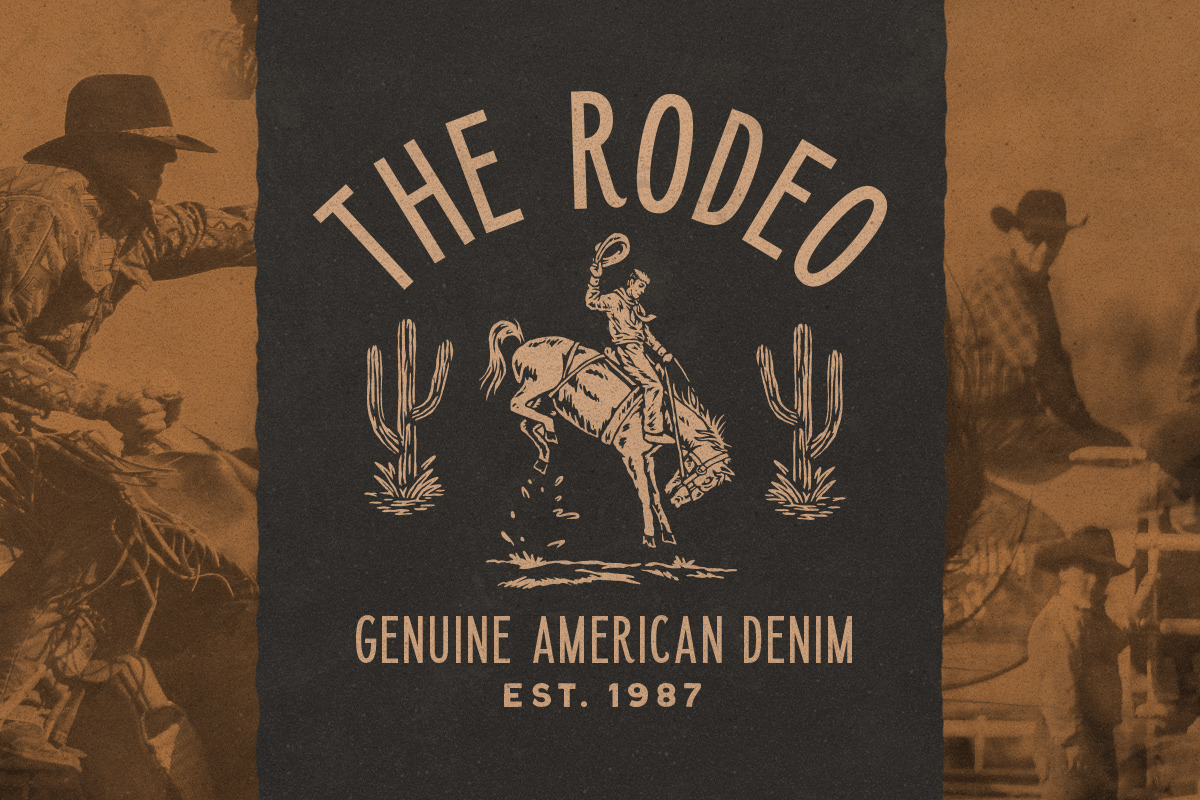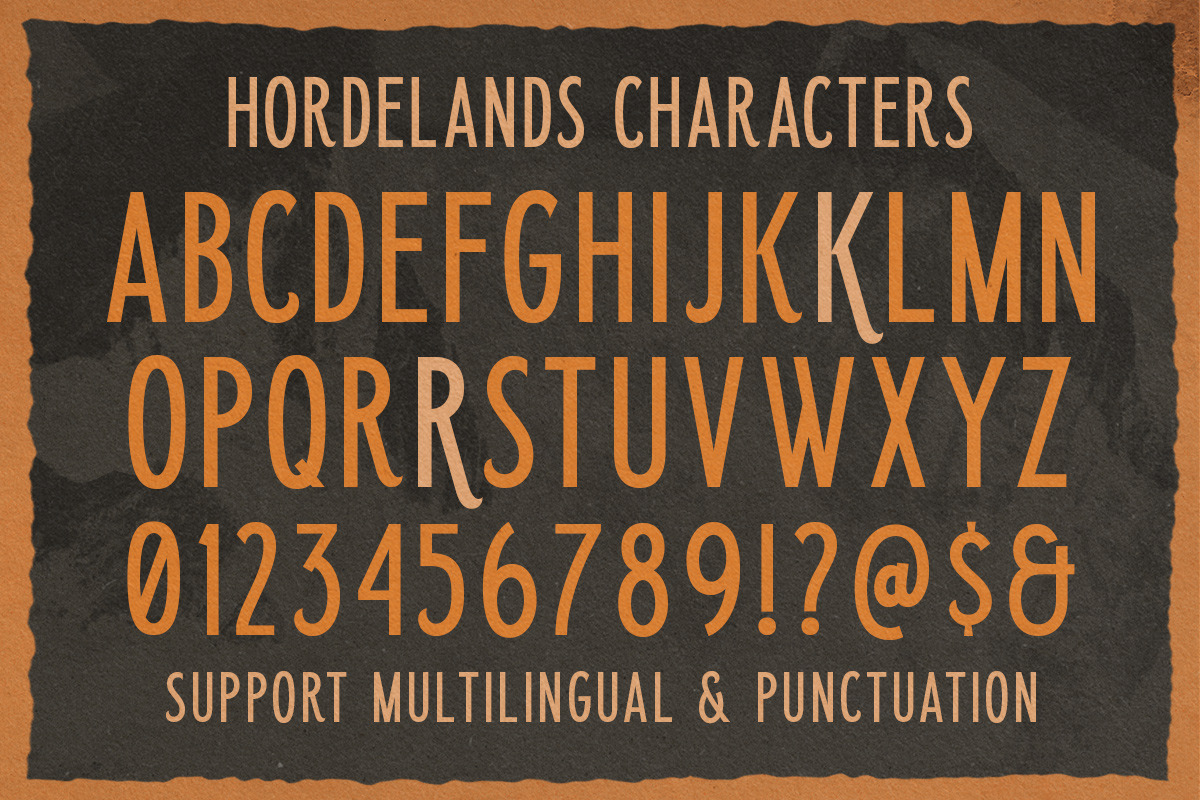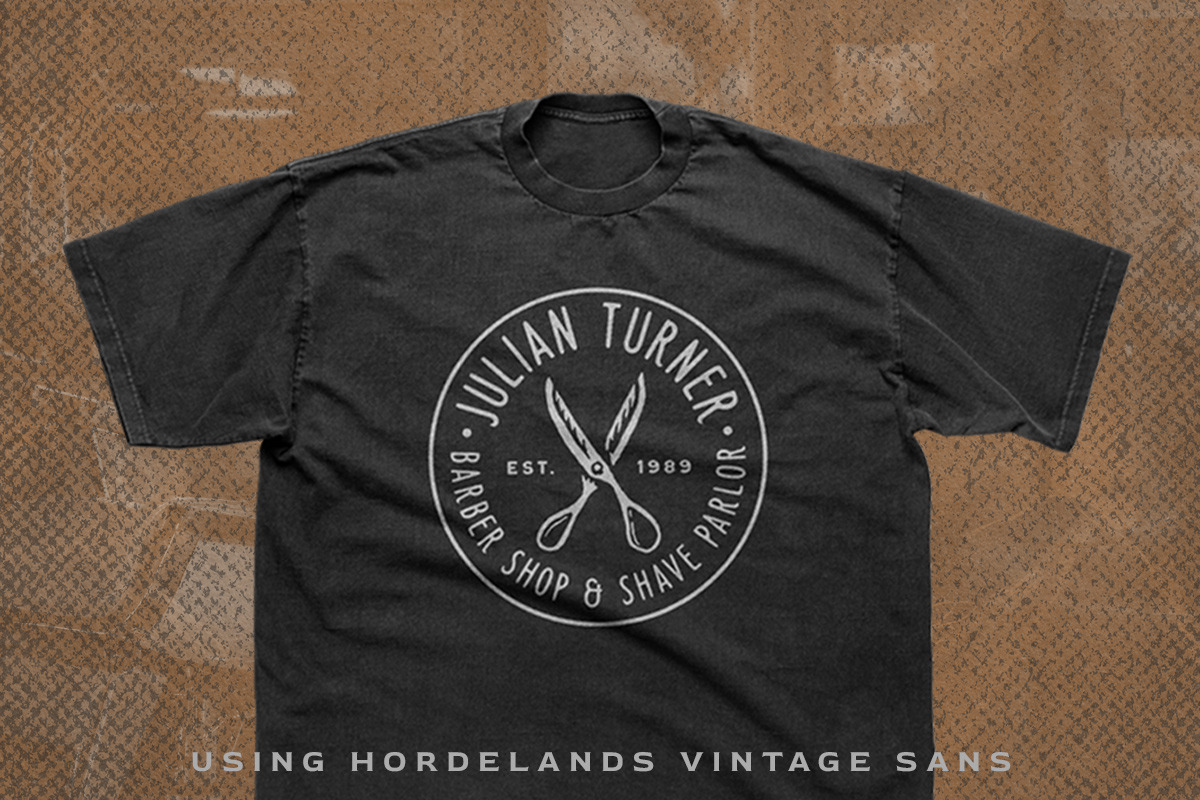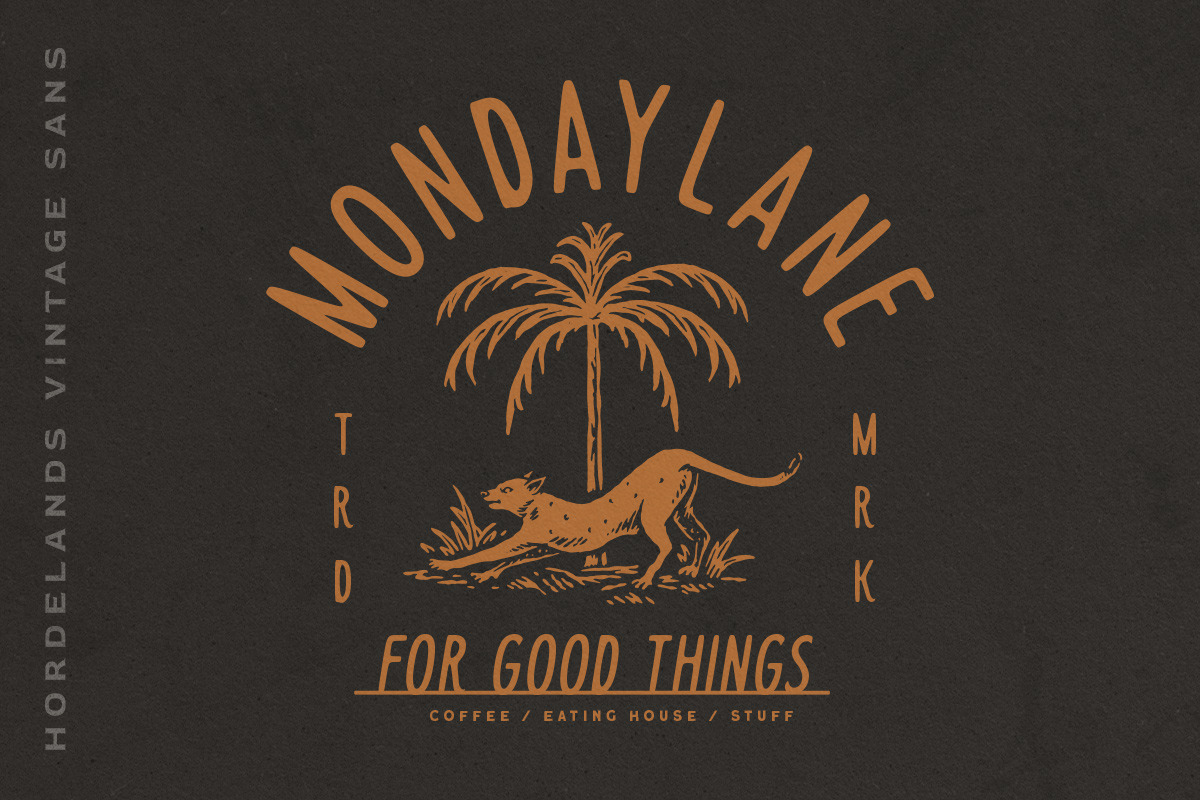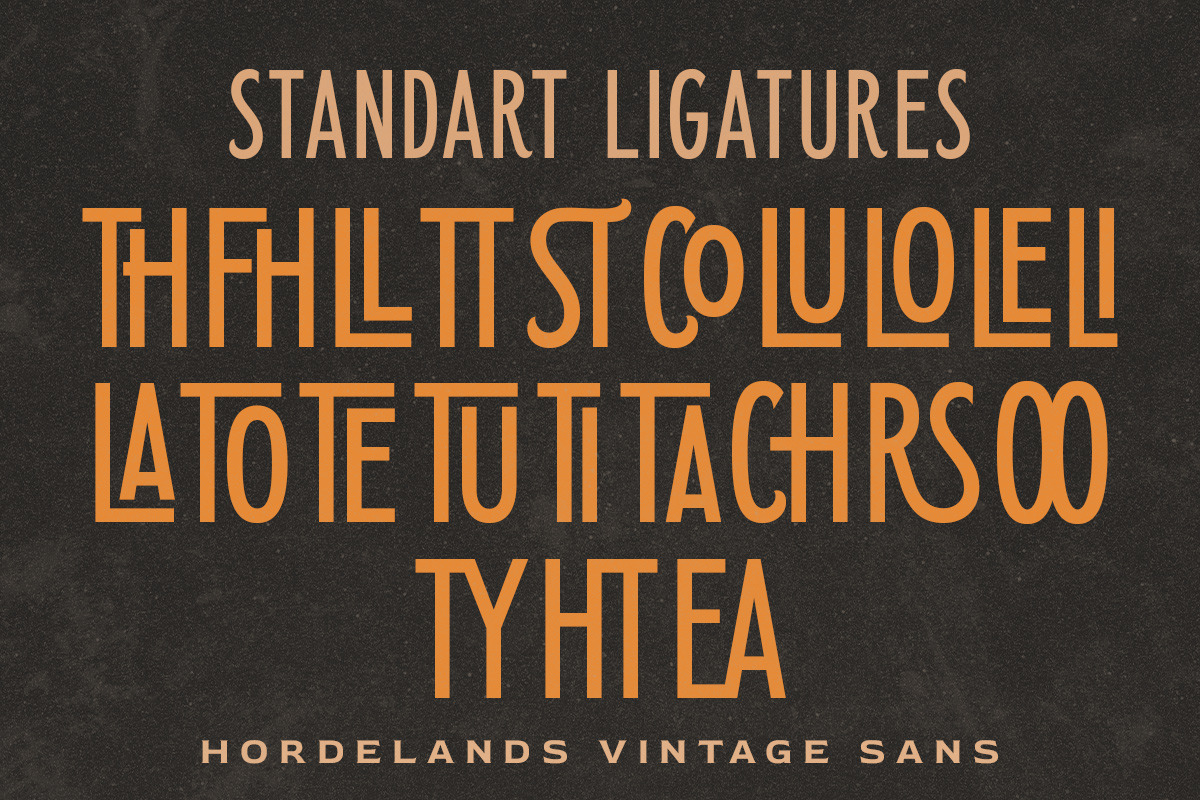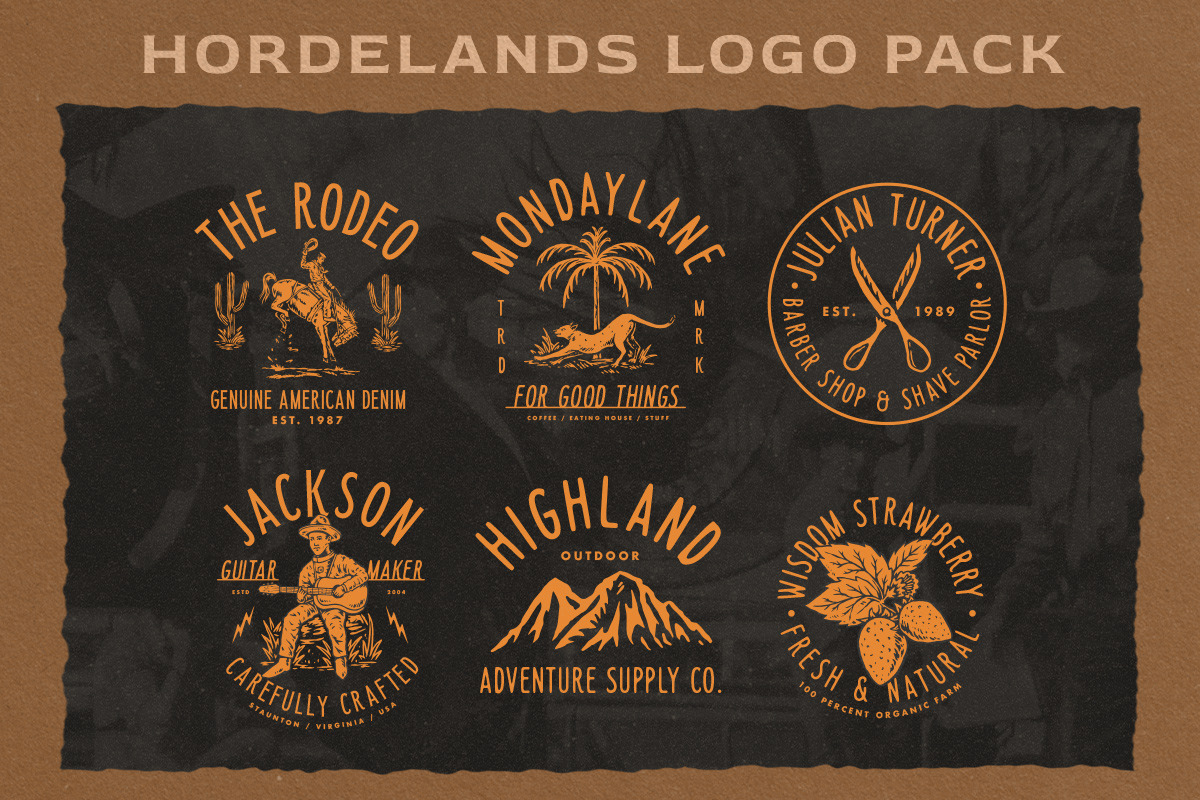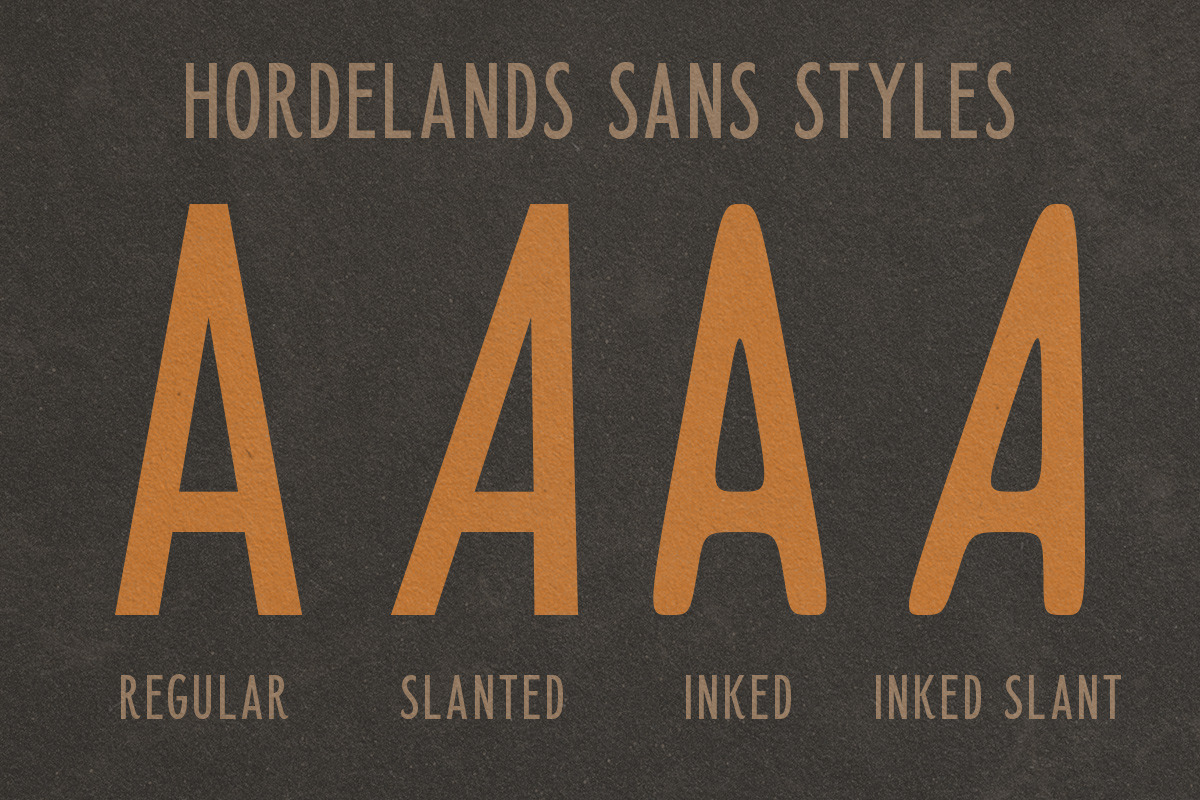
Horderlands - Condensed Vintage Sans
Hordeland is a display condensed typeface with a touch of vintage look and feel. it comes with few logo pack ready to use! This type of font perfectly made to be applied especially in logo, headline, signage and the other various formal forms such as invitations, labels, logos, magazines, books, greeting / wedding cards, packaging, fashion, make up, stationery, novels, labels or any type of advertising purpose.
- alternates / swashes and ligatures